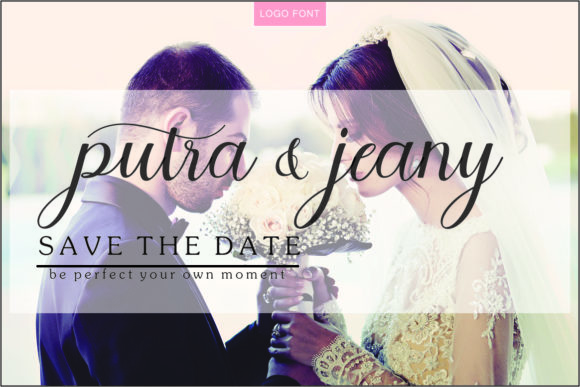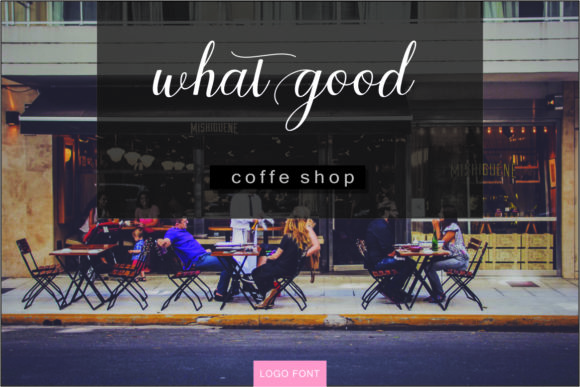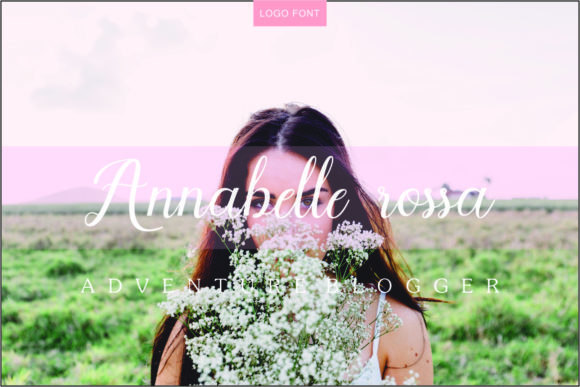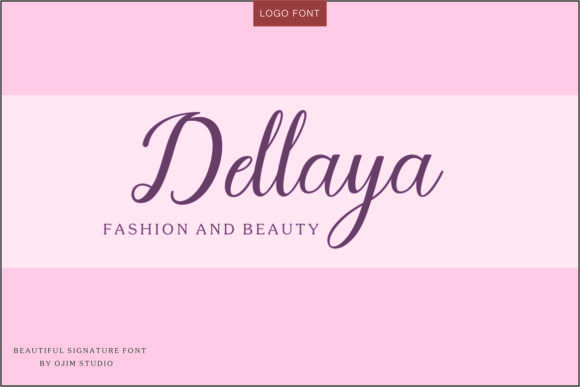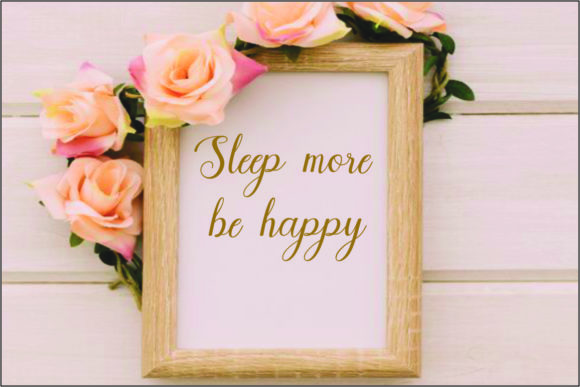
Melayu Script Font
The Melayu is a modern script font. Every letter has been carefully crafted to make your text look beautiful with an elongated connection model.
It’s modern and elegant style is perfect for wedding invitations, greeting cards, posters, business cards, quotes, blog headers, branding, logos, fashion, clothing, letters, stationery, and much more!